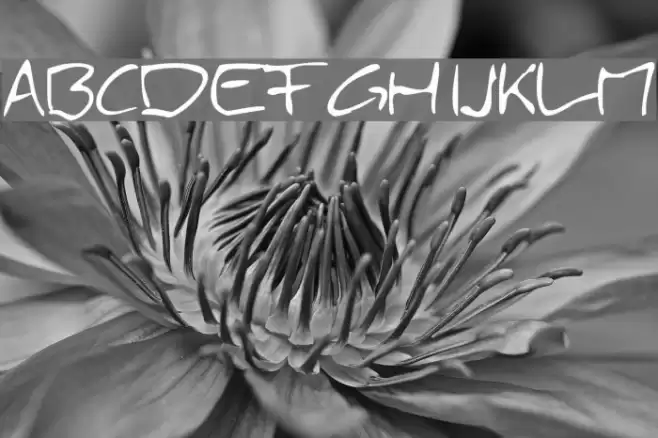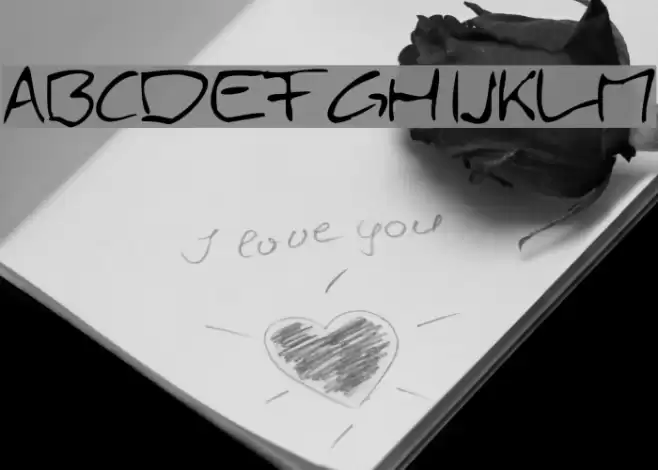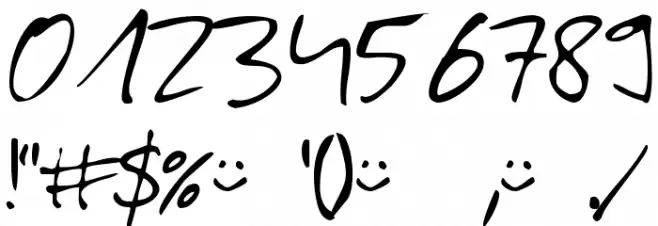
Simply21 Font
Simply21 Description
This font exudes a casual, handwritten style that is both playful and expressive. The characters are crafted with a dynamic flow, showcasing irregular strokes that mimic the natural movement of handwriting. The uppercase and lowercase letters maintain a consistent style, with a slightly slanted orientation that adds to the informal aesthetic. The numbers and special characters are designed to match the overall theme, ensuring a cohesive look across all text elements. The font's unique personality makes it ideal for projects that require a personal touch, such as invitations, greeting cards, or creative branding materials.
A playful, handwritten font with dynamic, irregular strokes from Handwritten fonts.
- Proposed Projects: Ideal for invitations, greeting cards, creative branding, and personal projects.
- Overall Style: Casual, Playful
- Use Case: Headlines, Logos, Creative projects